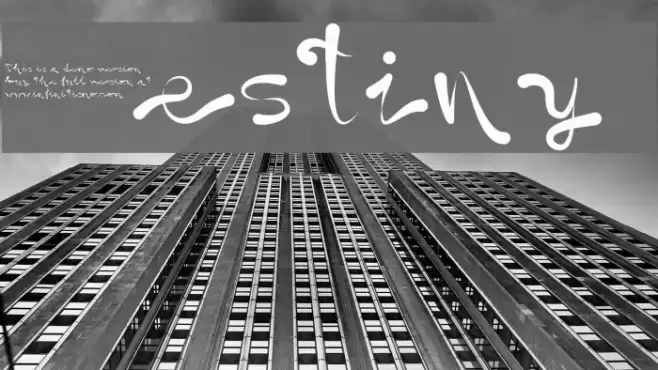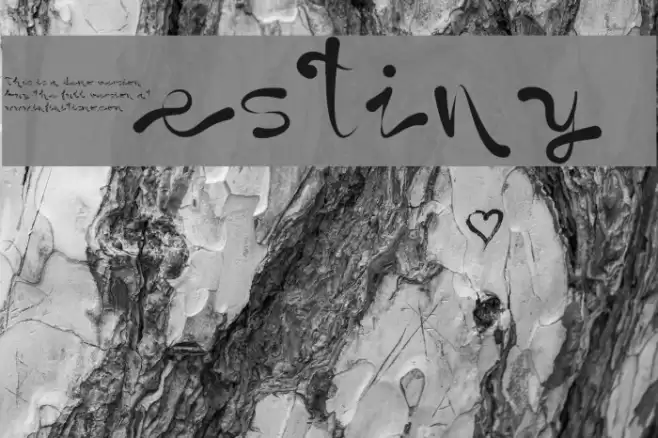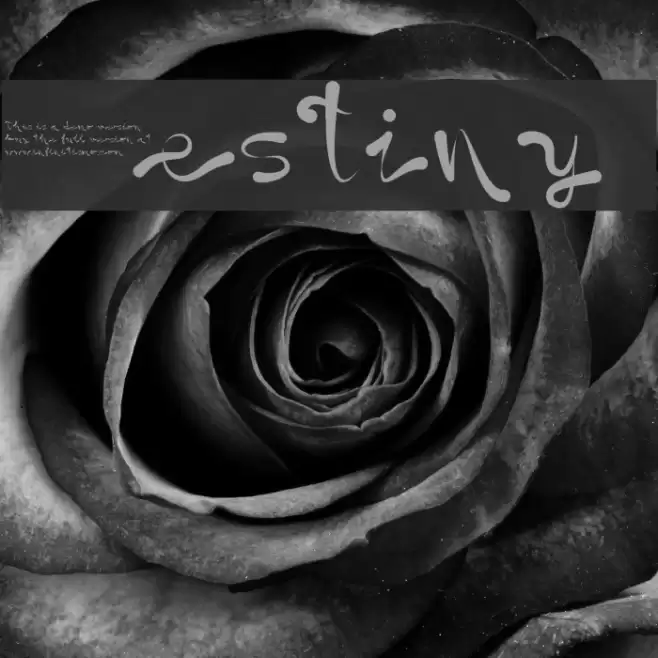
Destiny Font
Destiny Description
This font features a unique and artistic script style with flowing, cursive-like characters. The lowercase letters exhibit a playful and whimsical design, with varying stroke thickness that adds a dynamic feel. The characters have a hand-drawn appearance, with some letters featuring loops and swirls that enhance its decorative quality. The font lacks uppercase letters and numerals, focusing solely on lowercase alphabetic characters. Its distinctive style makes it suitable for creative and informal applications, offering a sense of elegance and individuality.
An artistic script font with flowing, cursive-like lowercase letters from Uncategorized fonts.